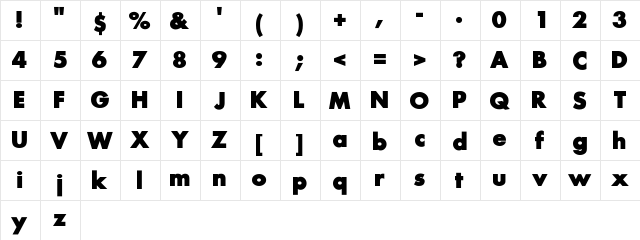
RSFutura Regular
Design Context for RSFutura Typeface
RSFutura channels digital-age aesthetics through its sharp, structured letterforms — ideal for brands that want to signal innovation.
Pro Tip: Use RSFutura in combination with a neutral sans for body text. Let it define the brand voice in headlines while keeping reading comfortable elsewhere.